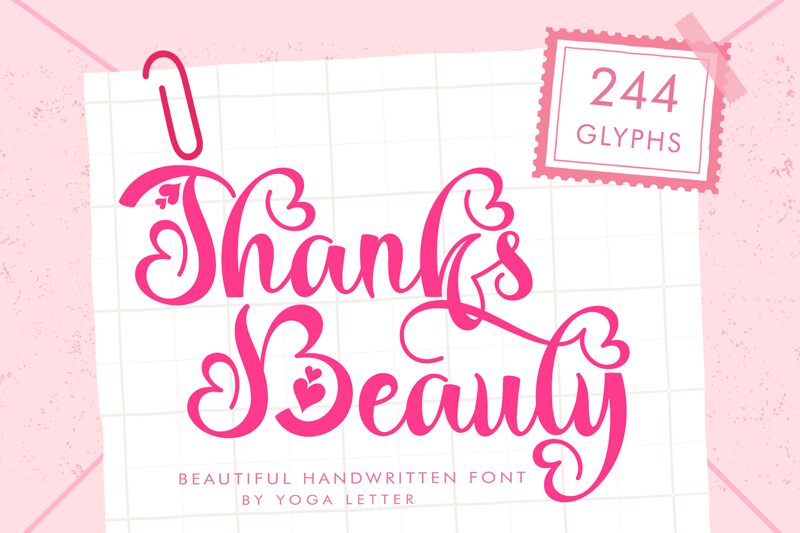
Thanks Beauty font family by Yoga Letter embodies a romantic and expressive style with an impressive charm created by its 2 font styles. This handwritten family of fonts captures elegance and artistic flair with totally cute letterings decorated gently with additional design elements. The font is instantly pleasing and translates well from traditional to modern applications.
With a natural touch, the Thanks Beauty font is suitable for invitations, greeting cards, and personalized branding. At the same time, the typeface is applicable in packaging, stationery, and magazine covers. You can use it for stylish website headers, typography for online and print ads, social media branding and promotion, apparel design, and even movie titles.